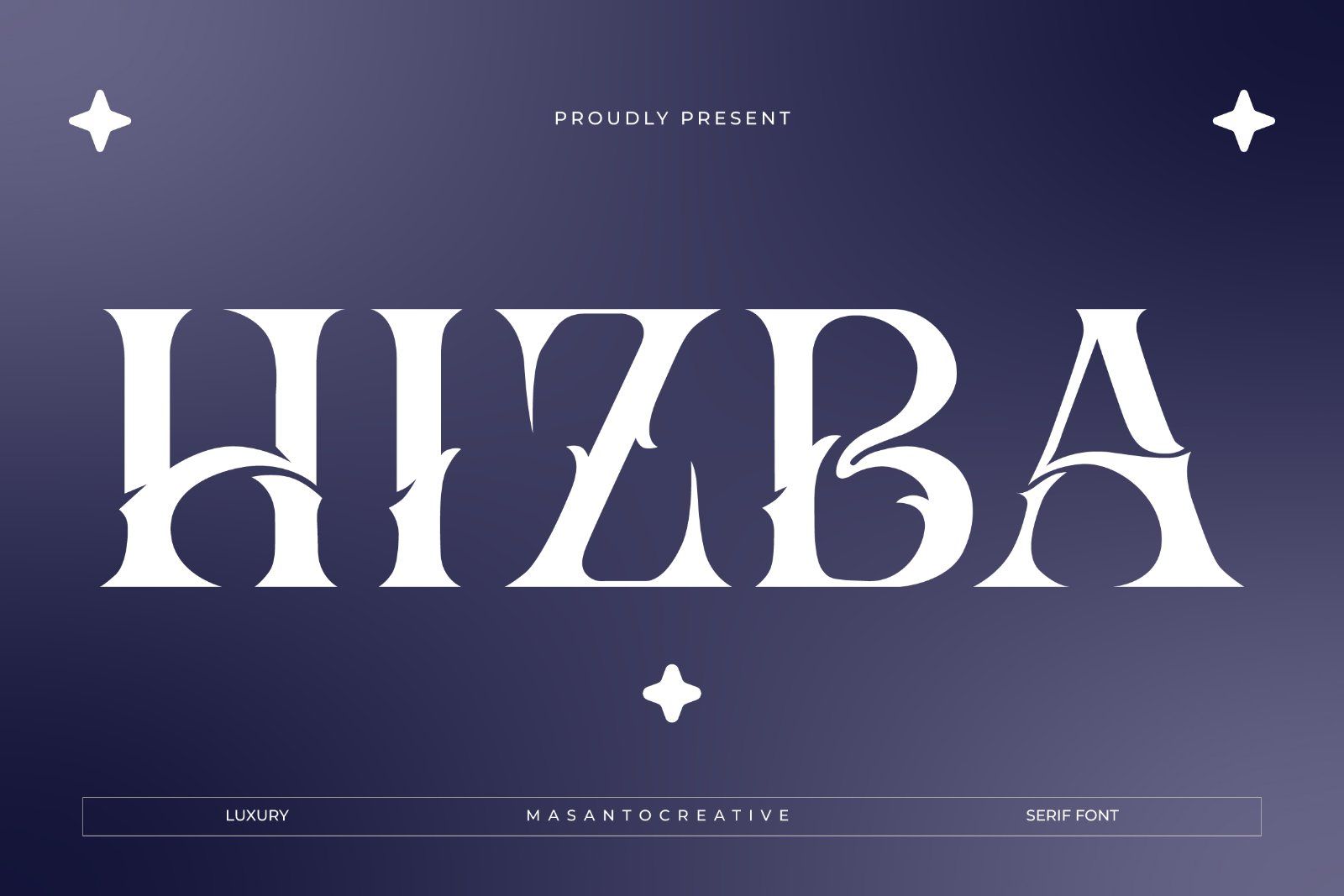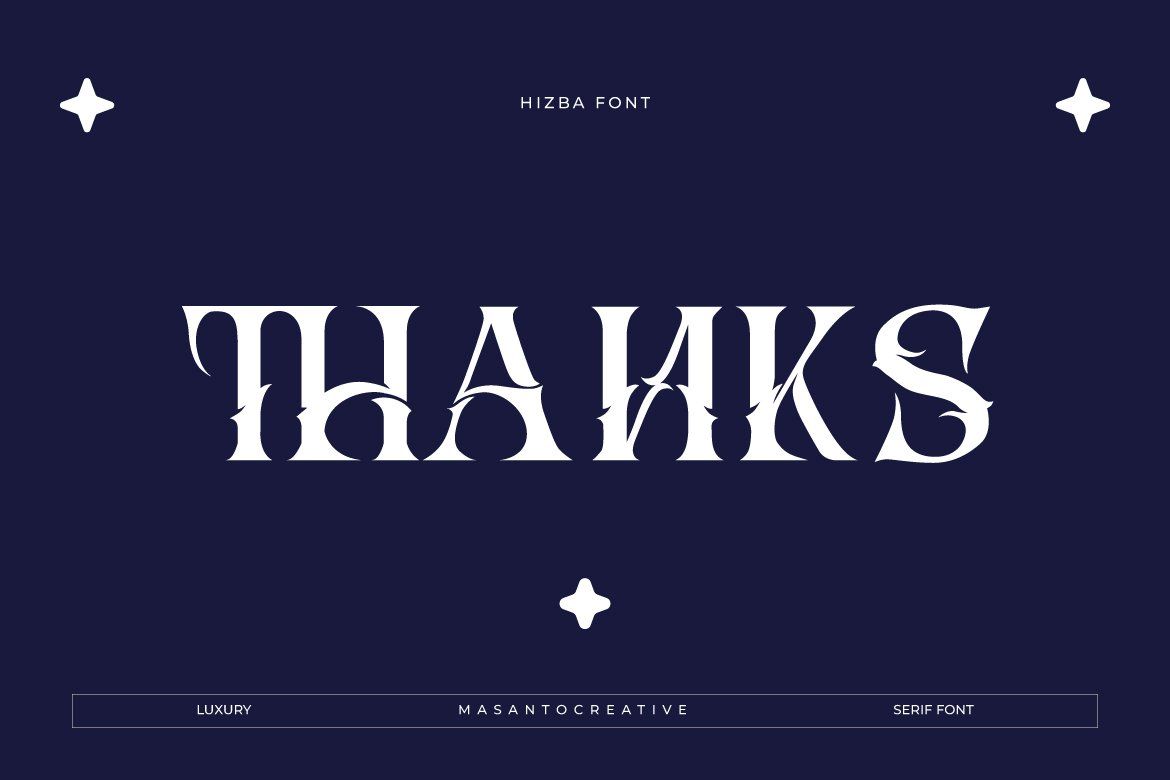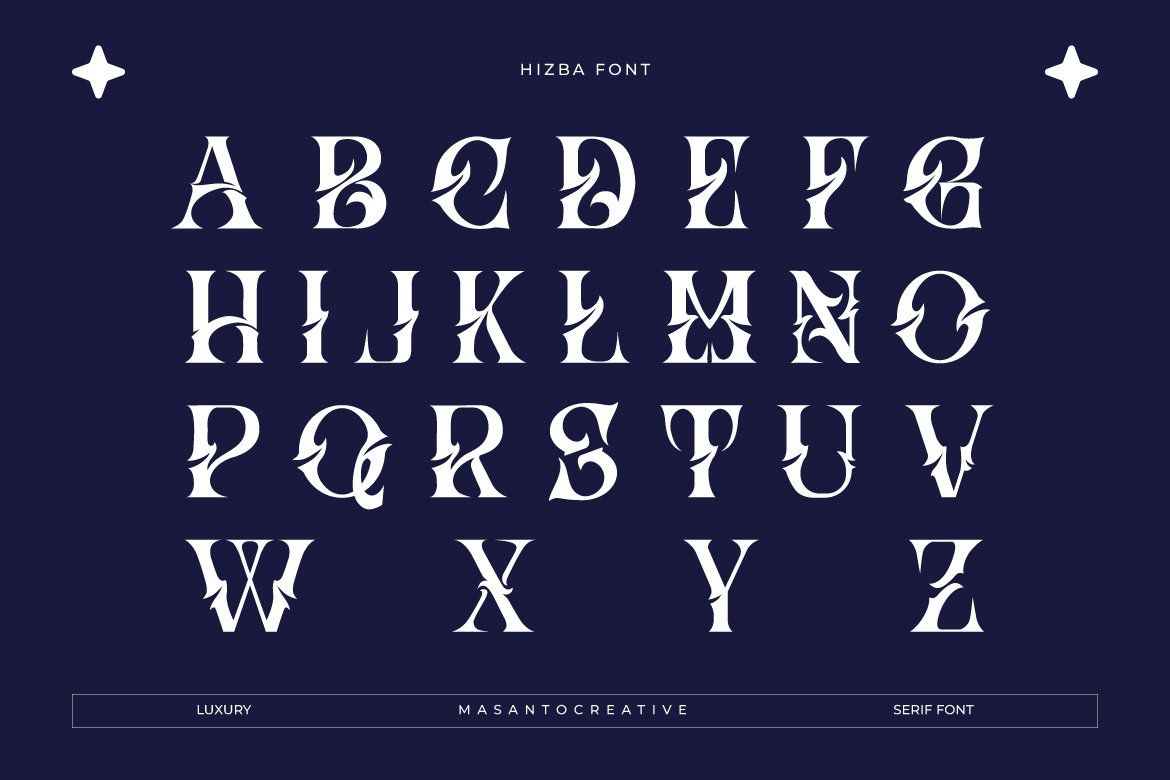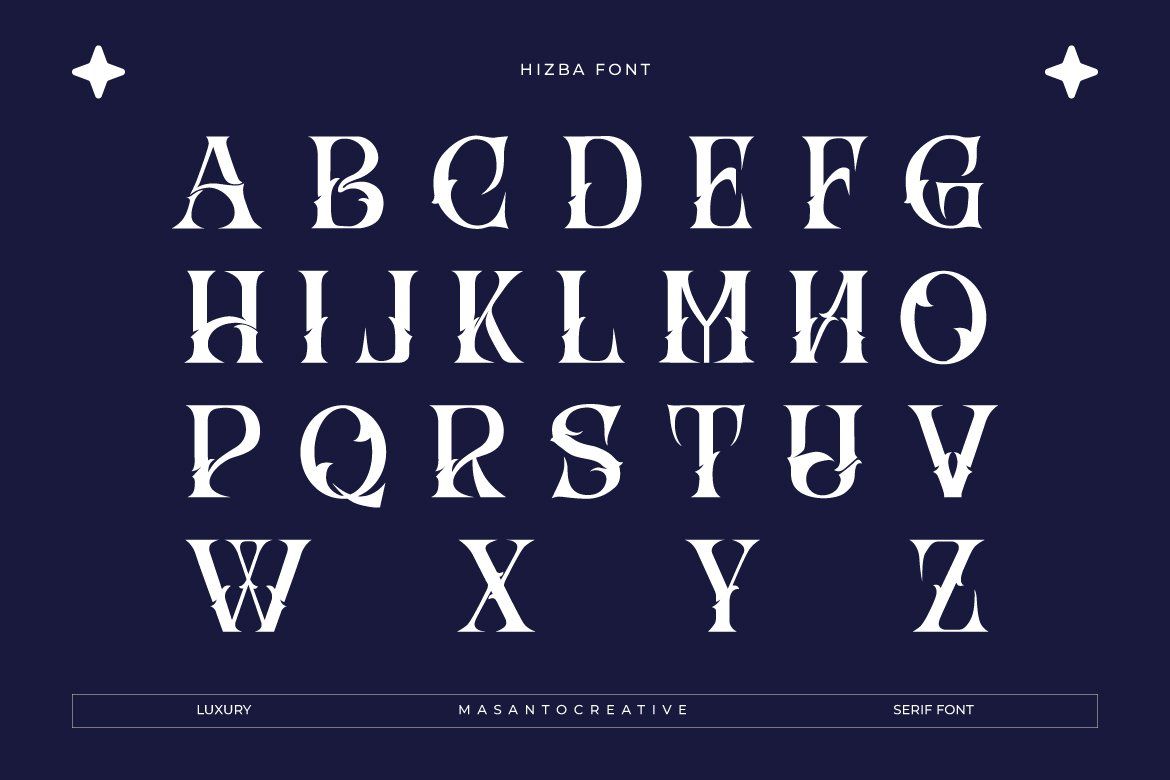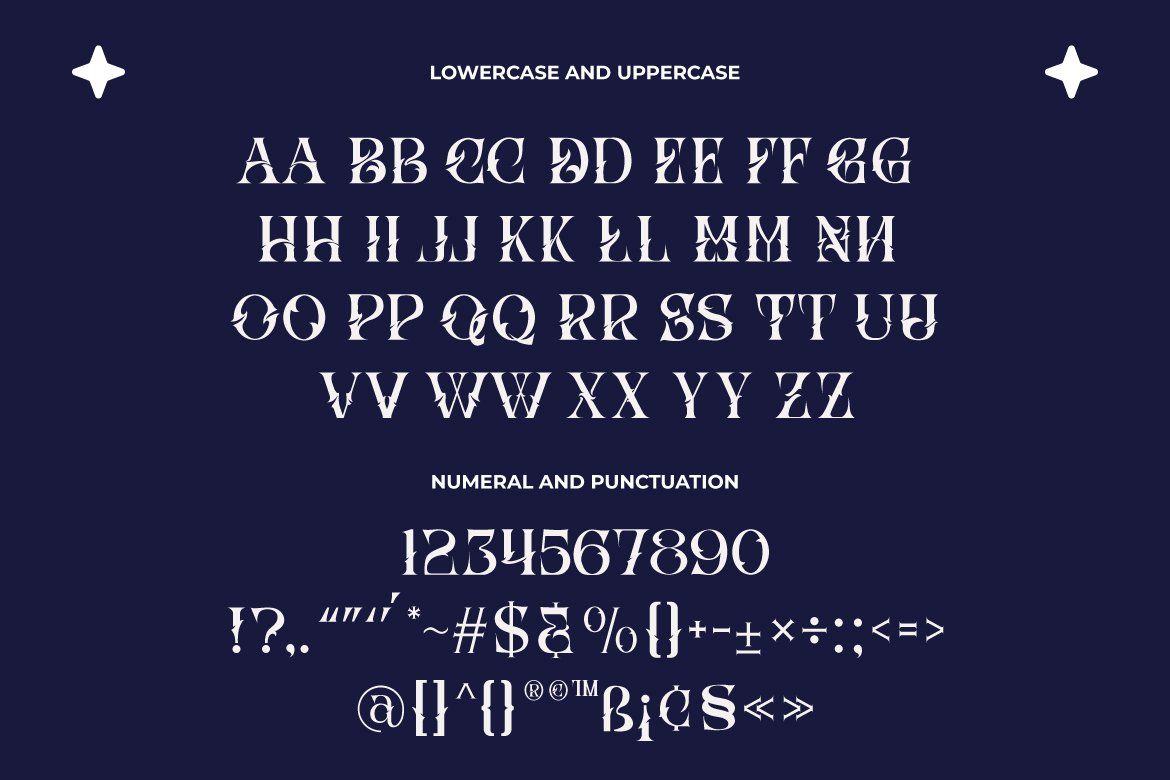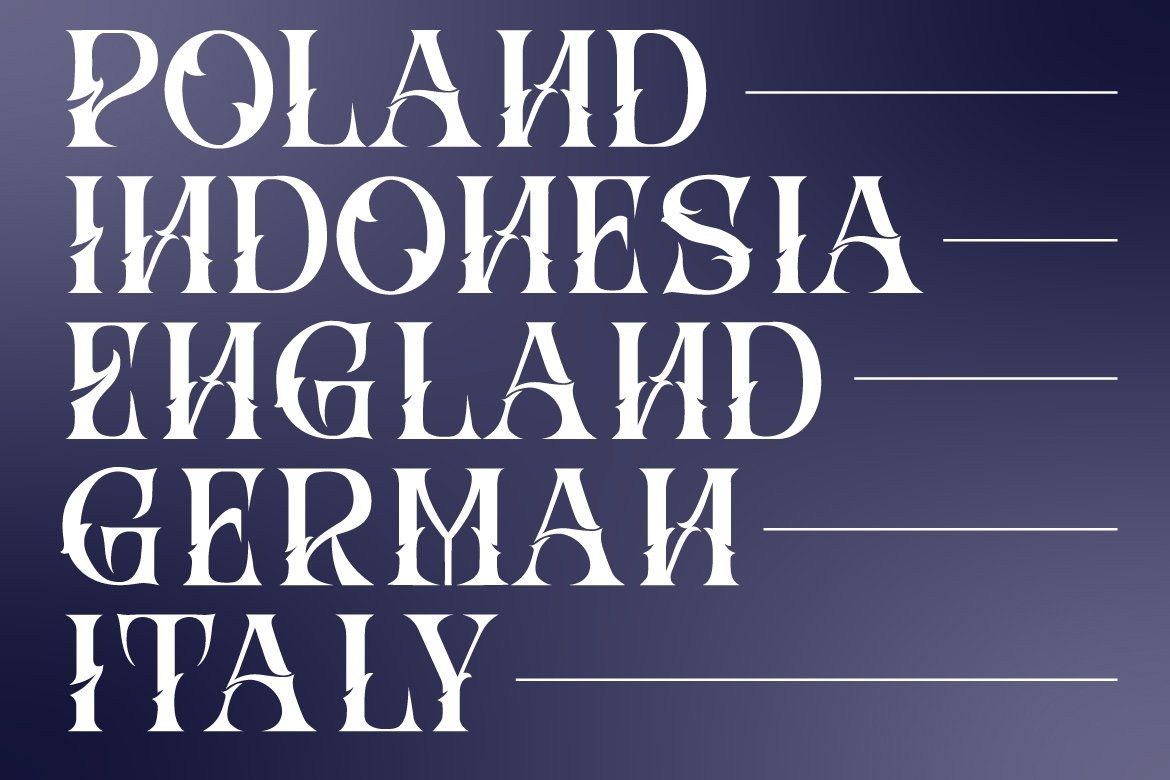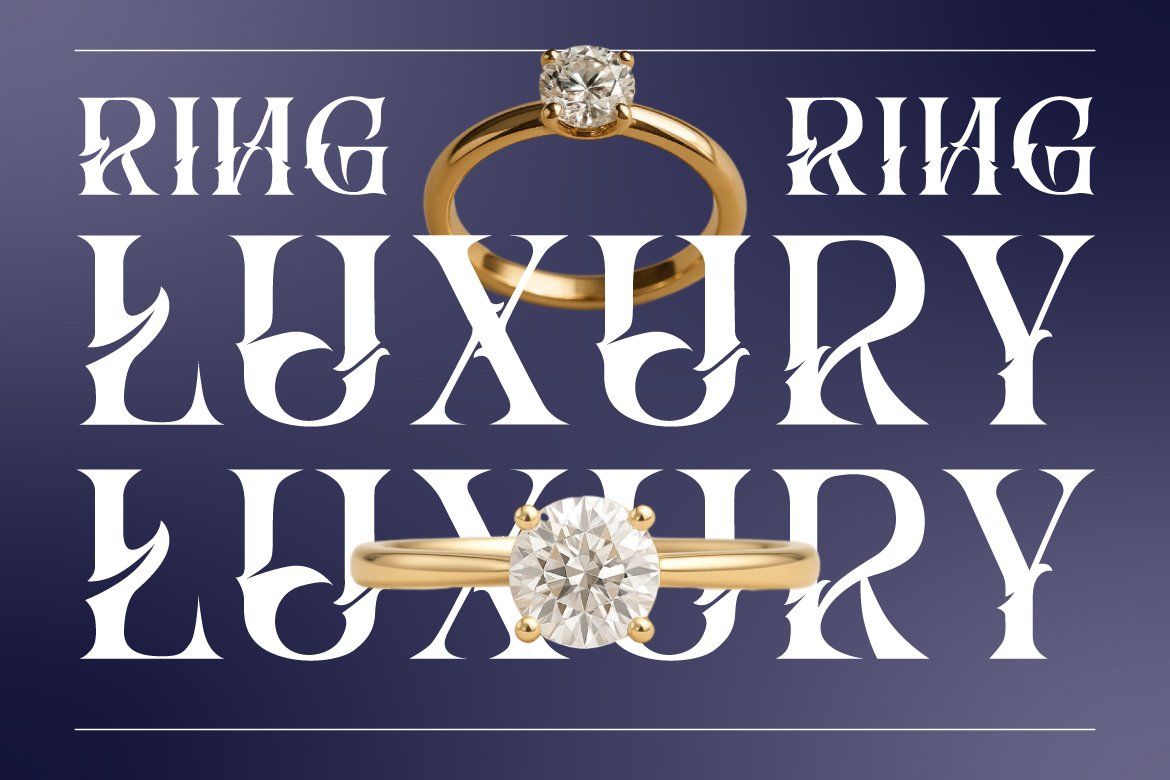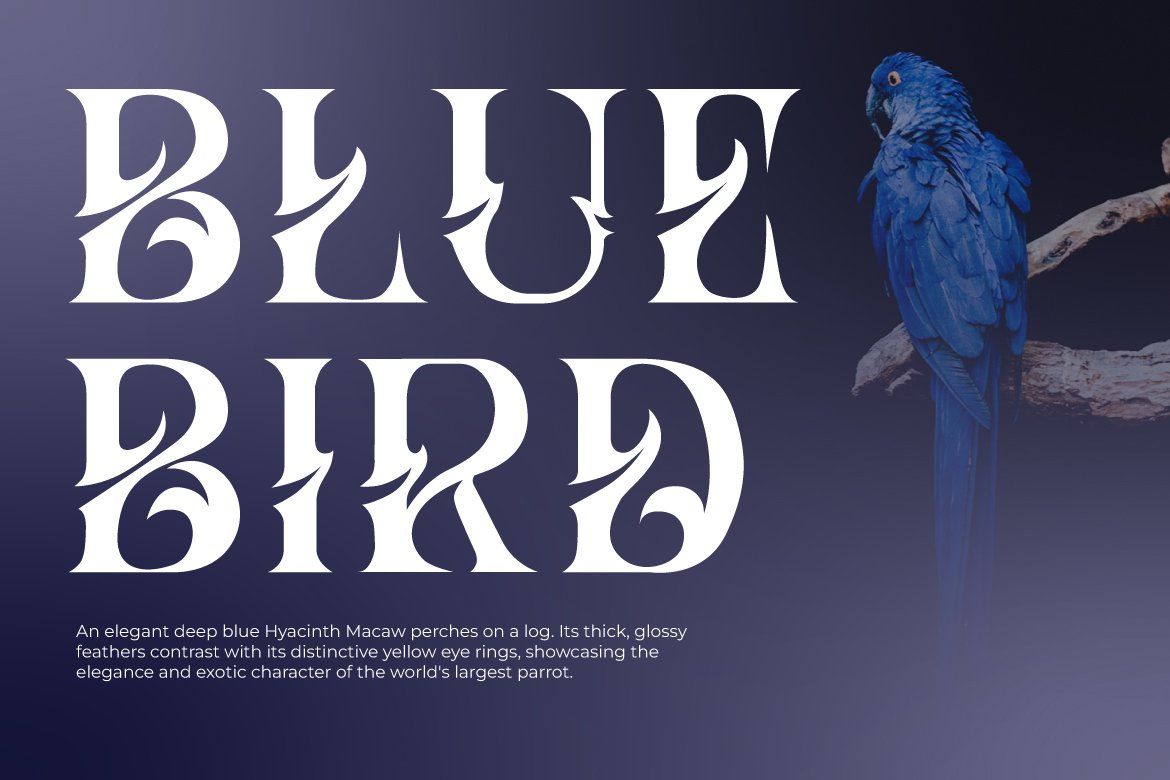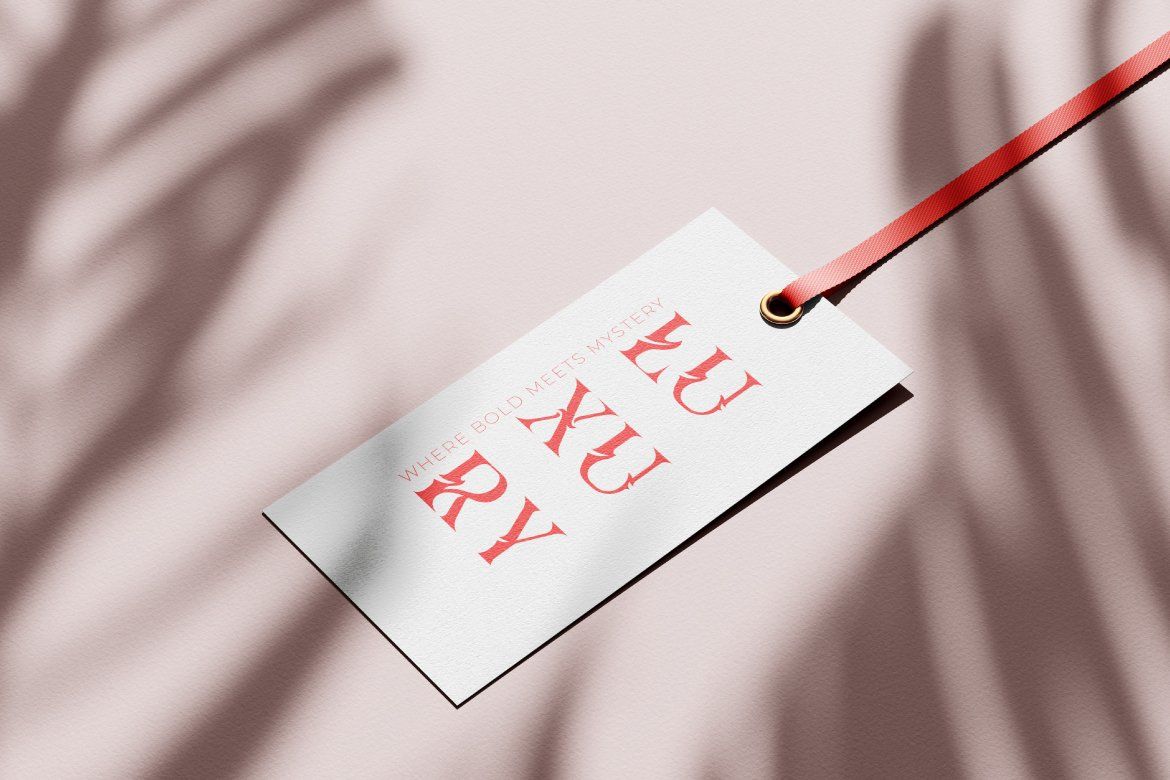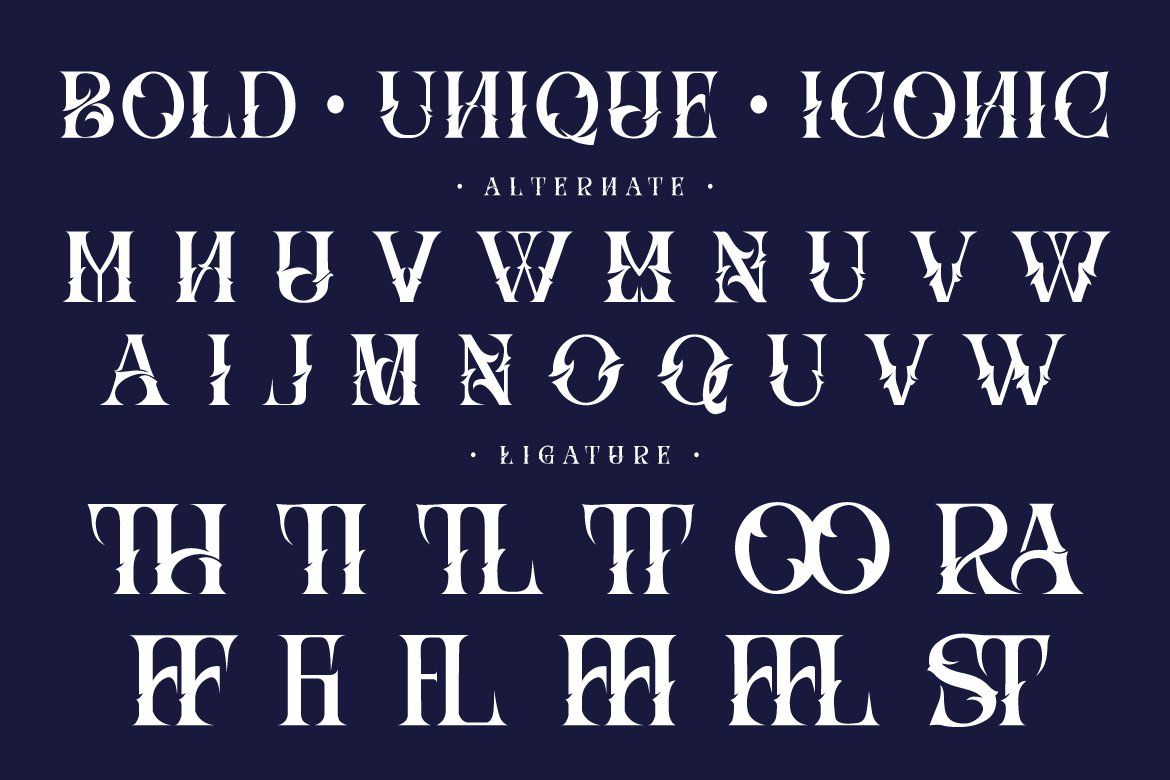
Hizba is an exclusive luxury ornamental serif typeface crafted with bold curves, sharp decorative cuts, and a distinctive high-end aesthetic. Its unique character shapes make it perfect for designers who want a typeface that feels artistic, iconic, and premium.
This font is ideal for logo design, fashion branding, jewelry packaging, editorial layouts, product labels, posters, invitations, and any project that requires a strong and elegant visual statement.
FEATURES
• Uppercase & Lowercase Letters
• Alternates & Ligatures
• Stylish ornamental serif details
• Perfect for display and large headlines
A refined and unique display serif crafted to elevate any premium visual project.